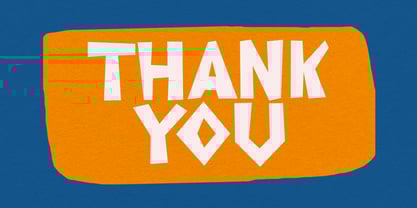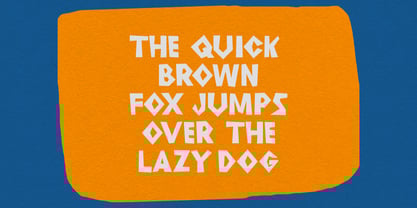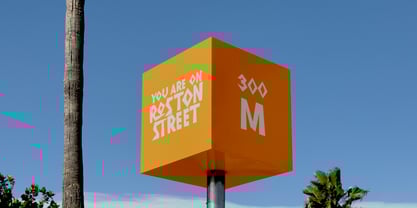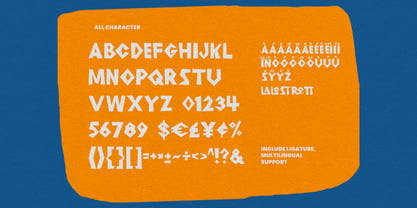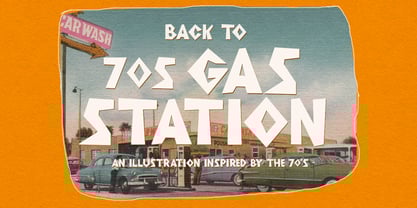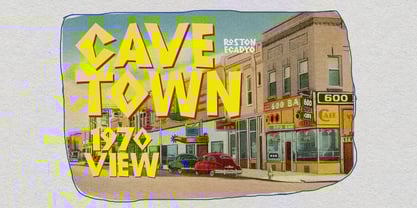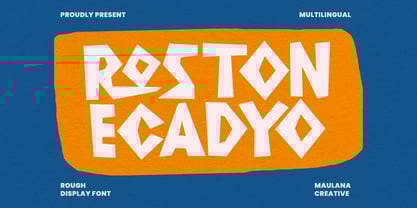
MC Roston Ecadyo
by Maulana Creative
The MC Roston Ecadyo Font Family was designed by Gilang Maulana and published by Maulana Creative. MC Roston Ecadyo contains 1 styles.
Roston Ecadyo is a sans serif display font. With bold stroke, fun character with a bit of ligatures. To give you an extra creative work. Roston Ecadyo font support multilingual more than 100+ language. This font is good for logo design, Social media, Movie Titles, Books Titles, a short text even a long text letter and good for your secondary text font with sans or serif. Make a stunning work with Roston Ecadyo font.